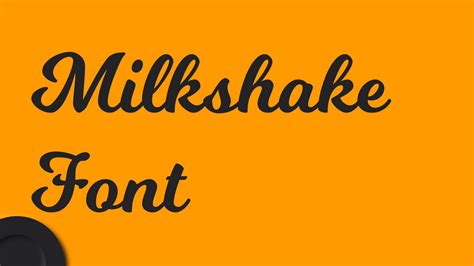
Milkshake Font Download - Web 1 matching request on the forum. The font is free to. Web milkshake font is a beautiful script handwritten font designed by laura worthington in 2016.
Web milkshake font is a beautiful script handwritten font designed by laura worthington in 2016. Web 1 matching request on the forum. The font is free to.
Web 1 matching request on the forum. The font is free to. Web milkshake font is a beautiful script handwritten font designed by laura worthington in 2016.
Web Milkshake Font Is A Beautiful Script Handwritten Font Designed By Laura Worthington In 2016.